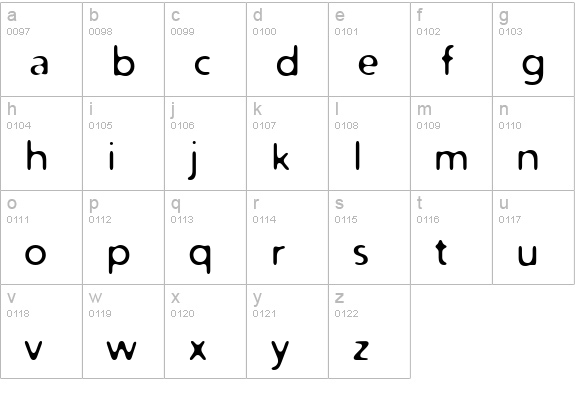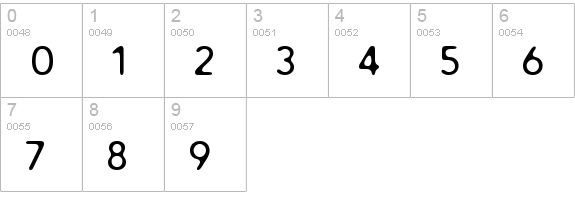
Distro font is a modern and versatile typeface that exudes a unique combination of elegance and edginess. With its sleek lines and sharp angles, this font is perfect for designing contemporary logos, website headers, and eye-catching posters. What sets Distro font apart is not just its stunning aesthetics, but also its accessibility. This font is available for free, allowing designers, creatives, and typography enthusiasts to unleash their creativity without any limitations. Whether you are a professional designer or just starting out, Distro font offers a world of possibilities for your projects. To make it even more convenient, Distro font can be easily downloaded from FontsMarket.com. This user-friendly website provides a vast collection of high-quality fonts, including Distro font, all conveniently categorized for easy browsing. With just a few clicks, you can have this remarkable font at your fingertips, ready to elevate your designs to new heights. With Distro font, your typography will make a bold statement, capturing attention and leaving a lasting impression. Its clean and modern design makes it suitable for a wide range of applications, from branding and advertising to editorial design and beyond. Don't miss out on the opportunity to enhance your designs with the captivating allure of Distro font. Download this incredible font for free at FontsMarket.com and unlock endless creative possibilities for your projects.